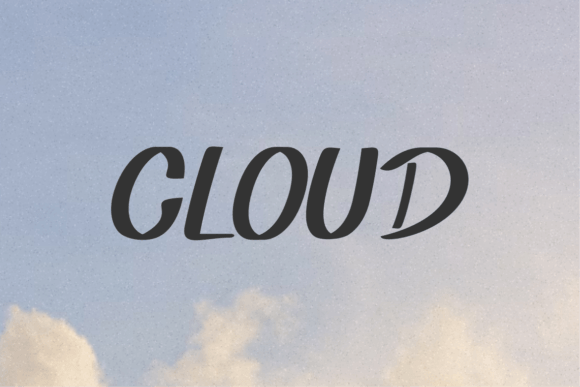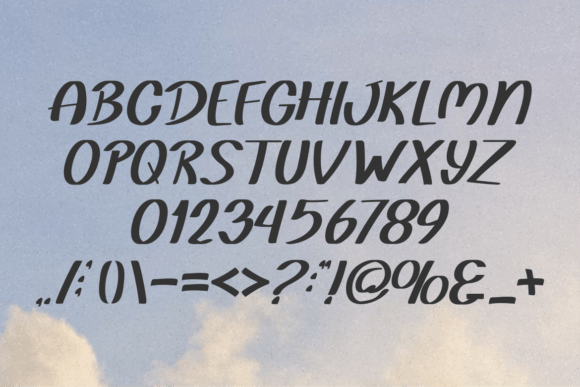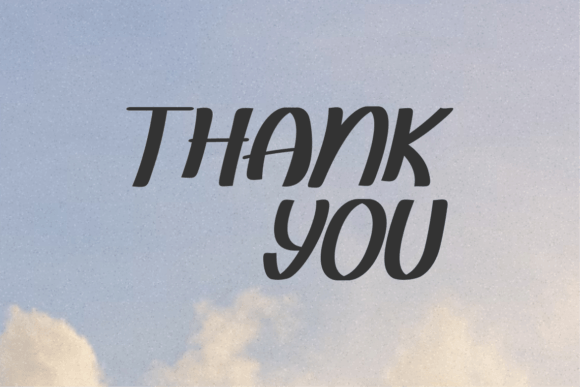
Introduction to Manillk Font
Manillk is a fresh and neat handwritten display font.
Add it confidently to your crafty ideas and you will love the results .
Key Features of Manillk Font
Why Choose Manillk Font?
Manillk Font offers exceptional quality and versatility, making it a valuable addition to your design toolkit. Whether you’re creating for personal projects or commercial use, Manillk Font delivers professional results.